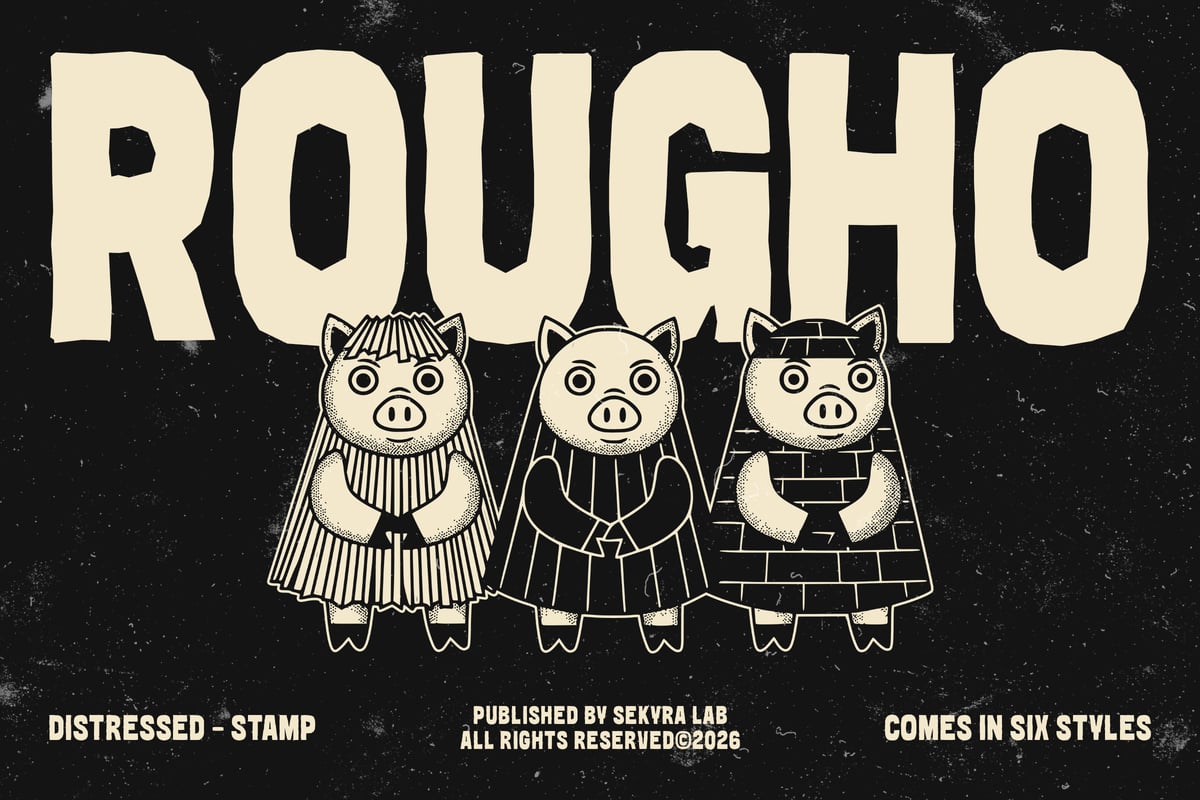
Rougho Font
Create loud visuals with raw texture and unapologetic boldness using this distressed display typeface.
Rougho delivers impactful typography through rugged edges, imperfect details, and handcrafted letterforms that bring an expressive vintage stamp aesthetic to your work. This gritty, energetic font feels authentically distressed while maintaining strong visual presence.
Designed for maximum impact, Rougho combines rough textures with condensed display proportions to make your designs stand out instantly. Perfect for posters, album artwork, editorial layouts, branding, packaging, and promotional graphics where you need authentic distressed character in every composition.
This typeface includes six versatile styles that let you explore different visual moods while keeping a consistent bold identity throughout your project.
- 6 Styles (Regular, Outline, Stamp, Oblique, Outline-Oblique, Stamp-Oblique)